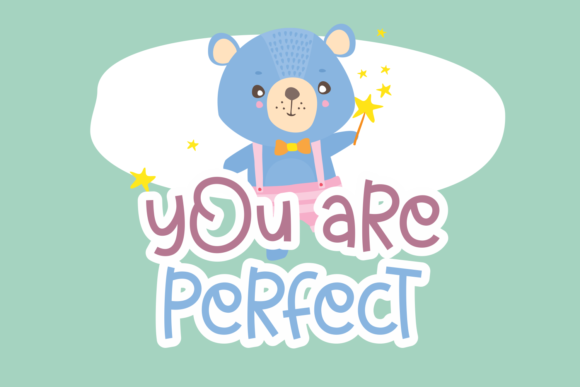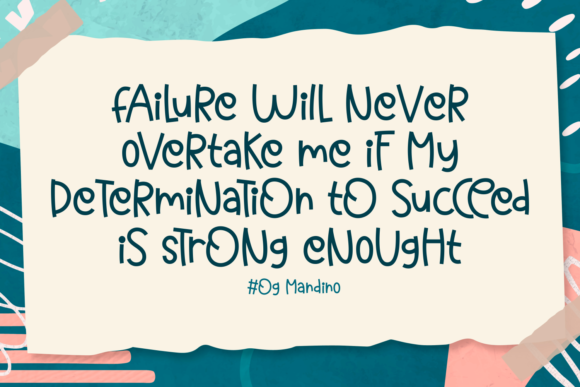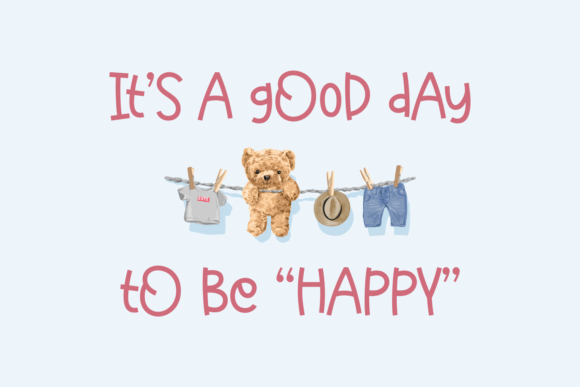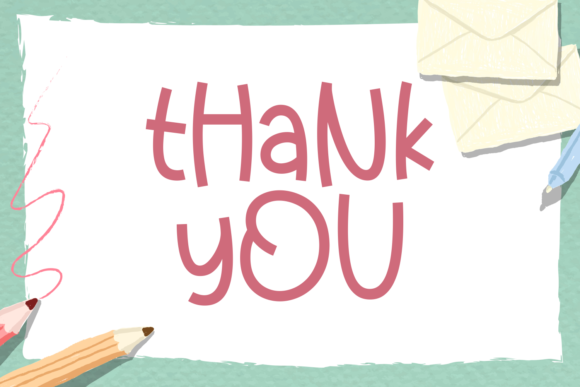
Introducing Before Tuesday Font: A Playful and Creative Typeface for Your Designs
Are you tired of using the same old fonts in your designs? Look no further than the Before Tuesday font, a playful and creative typeface that’s perfect for adding a touch of whimsy to your projects. In this article, we’ll take a closer look at the Before Tuesday font, its features, and how you can use it to elevate your designs.
What is Before Tuesday Font?
Before Tuesday is a display font that’s designed to add a playful and creative touch to your designs. With its bold and colorful appearance, this font is perfect for cartoon-inspired designs, kids’ clothing, branding, art prints, quotes, posters, books, wall art, birthday cards, and more.
Key Features of Before Tuesday Font
So, what makes Before Tuesday font so special? Here are some of its key features:
- Playful and creative design: Before Tuesday font has a unique and playful design that’s perfect for adding a touch of whimsy to your designs.
- Bold and colorful appearance: This font has a bold and colorful appearance that makes it perfect for eye-catching designs.
- Display font: Before Tuesday is a display font, making it perfect for headlines, titles, and other display text.
- Easy to read: Despite its playful design, Before Tuesday font is easy to read, making it perfect for use in a variety of designs.
How to Use Before Tuesday Font in Your Designs
Now that we’ve covered the features of Before Tuesday font, let’s take a look at how you can use it in your designs. Here are some ideas to get you started:
- Cartoon-inspired designs: Before Tuesday font is perfect for cartoon-inspired designs, such as children’s books, cartoons, and comics.
- Kids’ clothing: This font is also great for kids’ clothing, such as t-shirts, hoodies, and hats.
- Branding: Before Tuesday font can be used for branding, such as logos, business cards, and letterheads.
- Art prints: This font is perfect for art prints, such as posters, prints, and canvas.
- Quotes and posters: Before Tuesday font can be used for quotes and posters, adding a touch of whimsy to your designs.
- Books and wall art: This font is also great for books and wall art, such as children’s books, wall decals, and wall art.
- Birthday cards: Before Tuesday font can be used for birthday cards, adding a playful and creative touch to your designs.
Tips for Using Before Tuesday Font
Here are some tips for using Before Tuesday font in your designs:
- Use it sparingly: Before Tuesday font is a bold and playful font, so use it sparingly to avoid overwhelming your designs.
- Pair it with other fonts: This font can be paired with other fonts to create a unique and interesting design.
- Experiment with colors: Before Tuesday font comes in a variety of colors, so experiment with different colors to find the one that works best for your design.
In conclusion, Before Tuesday font is a playful and creative typeface that’s perfect for adding a touch of whimsy to your designs. With its bold and colorful appearance, this font is perfect for cartoon-inspired designs, kids’ clothing, branding, art prints, quotes, posters, books, wall art, birthday cards, and more. By following the tips outlined in this article, you can use Before Tuesday font to create unique and eye-catching designs that will stand out from the crowd.